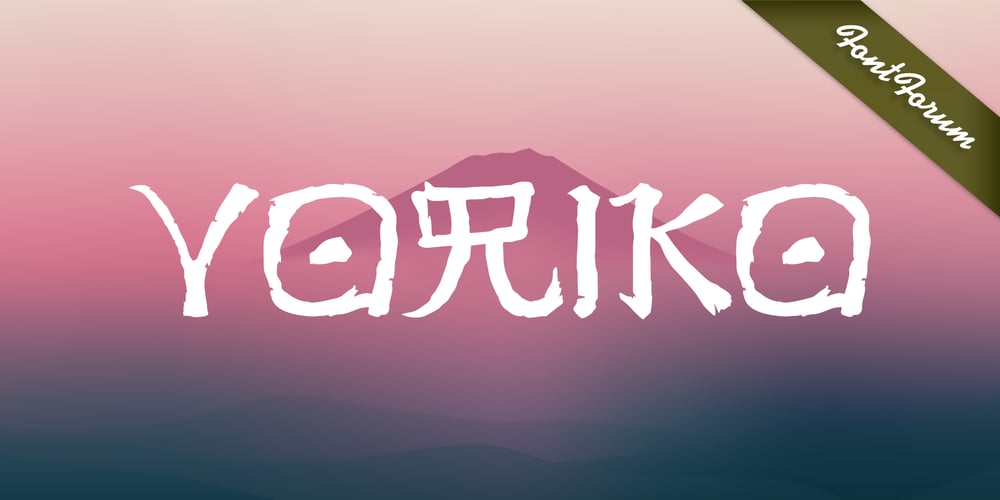
Yoriko Font Family was designed by Frank K. Lüdicke and published by URW Type Foundry. Yoriko contains 1 styles and family package options. Yoriko is a Latin display type from Frank Lüdicke. Its design was heavily influenced by Japanese brush stroke glyphs.